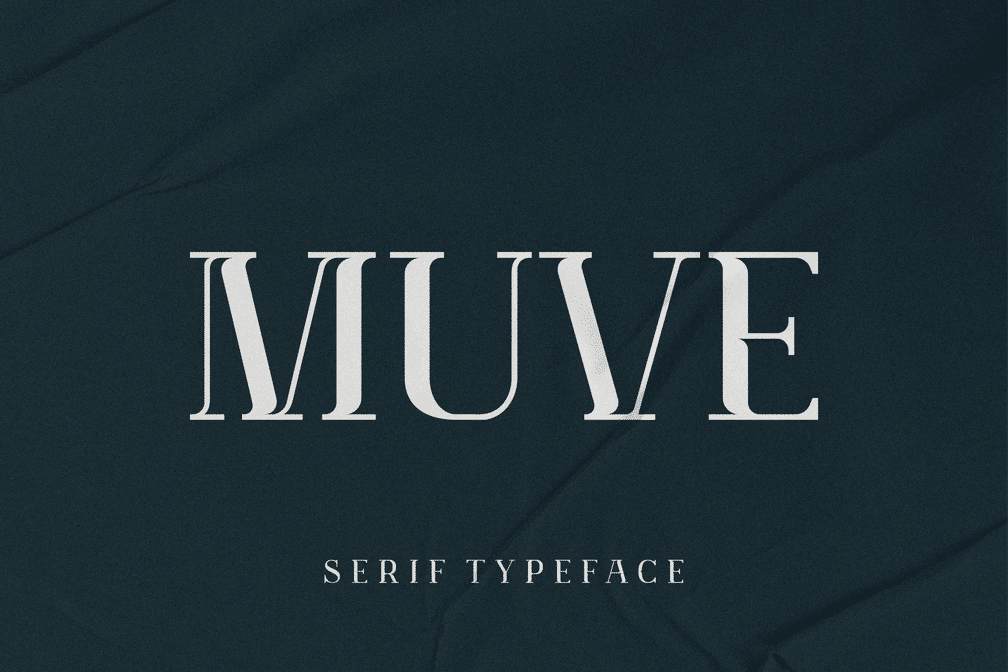
Muve is a sophisticated sans serif display font that effortlessly combines elegance and classic charm. With its refined letterforms and stylish alternates, Muve is the perfect choice for creating standout logos and eye-catching packaging that captures the essence of your brand. Its versatility shines through in various applications, making it an ideal option for businesses looking to convey a sense of quality and timelessness. This font’s extensive ~300+ glyph set ensures that you have the tools to communicate effectively across diverse languages and styles, enhancing your design’s reach and impact.